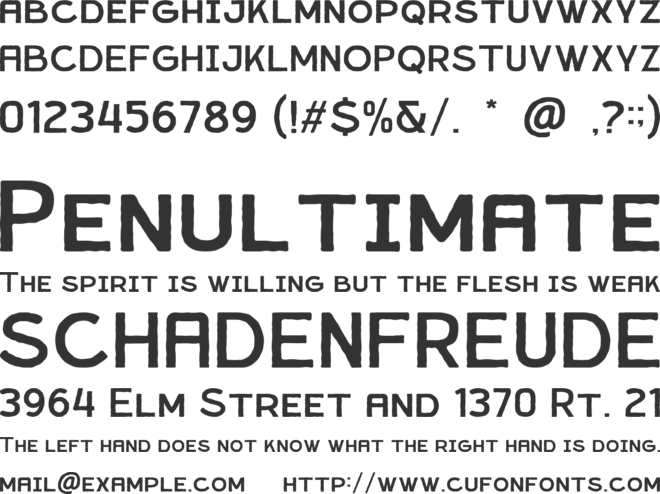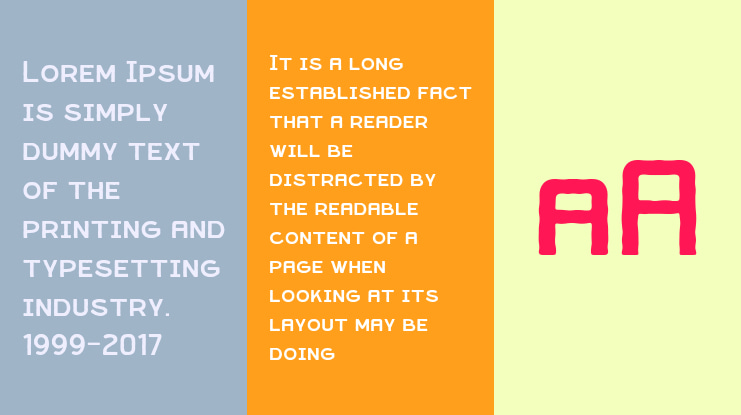
Palmera Island Font
Ni Nyoman Puspa Dewi
Palmera Island Typeface – The Soul of Vintage Adventure
Unleash the spirit of the wild and the warmth of the sun with Palmera Island, a masterfully crafted rough-stamp typeface designed for those who breathe adventure. Inspired by the authentic textures of vintage hand-stamped graphics, this font family brings a raw, organic, and timeless feel to any creative project.
Whether you are designing for a tropical surf brand, a rugged outdoor adventure shop, or a trendy lifestyle boutique, Palmera Island provides that sought-after "human touch" that modern digital fonts often lack.